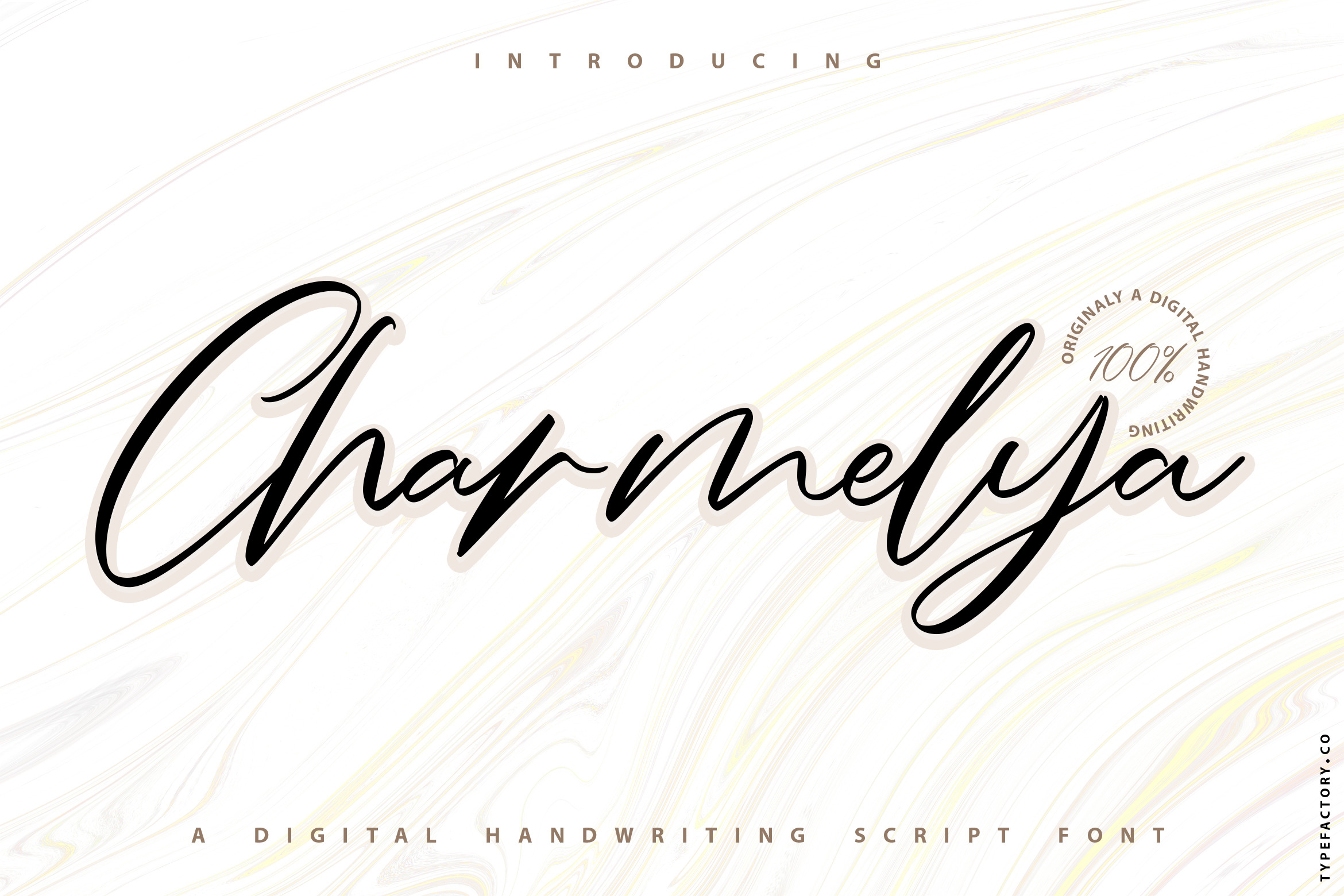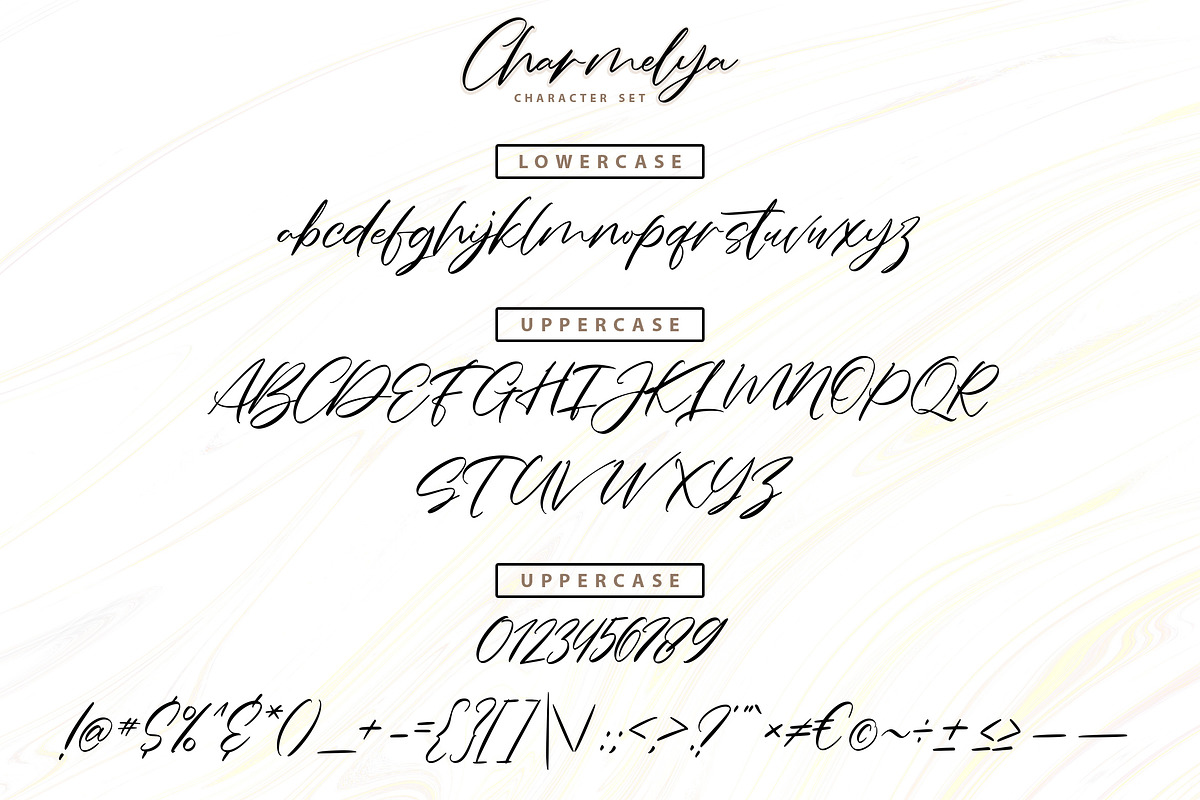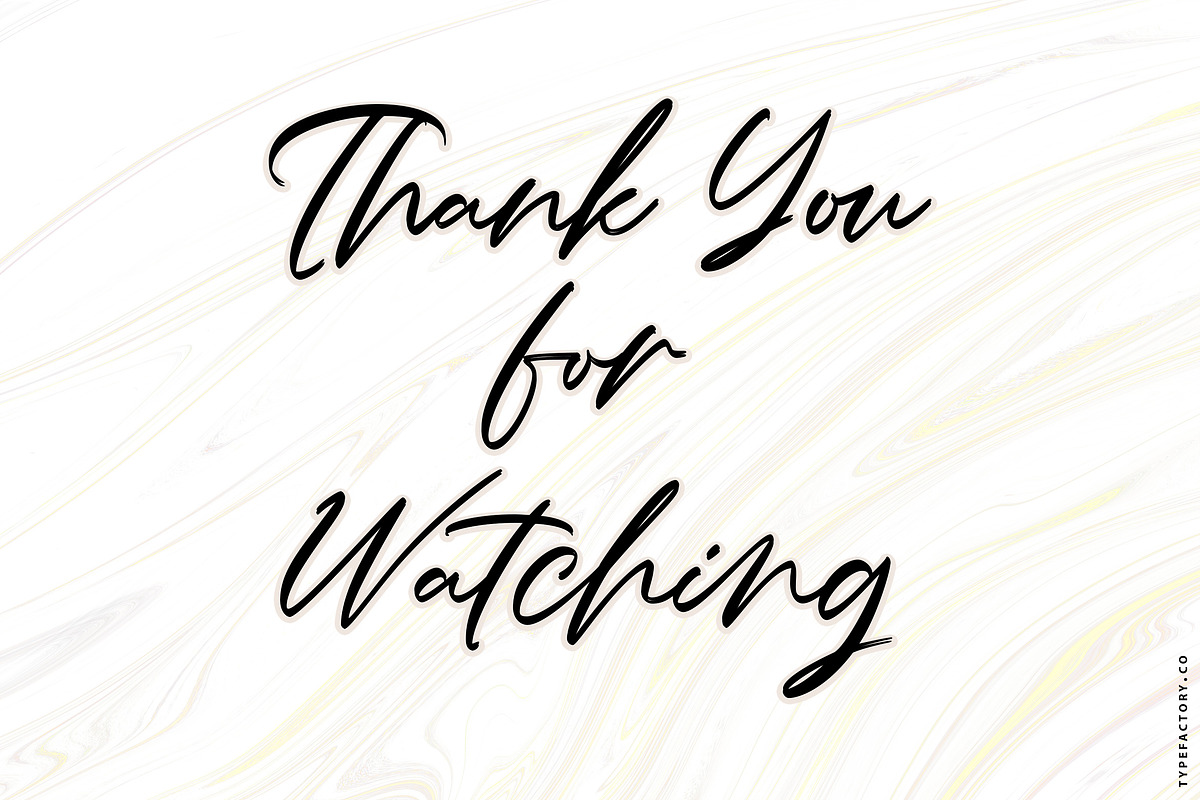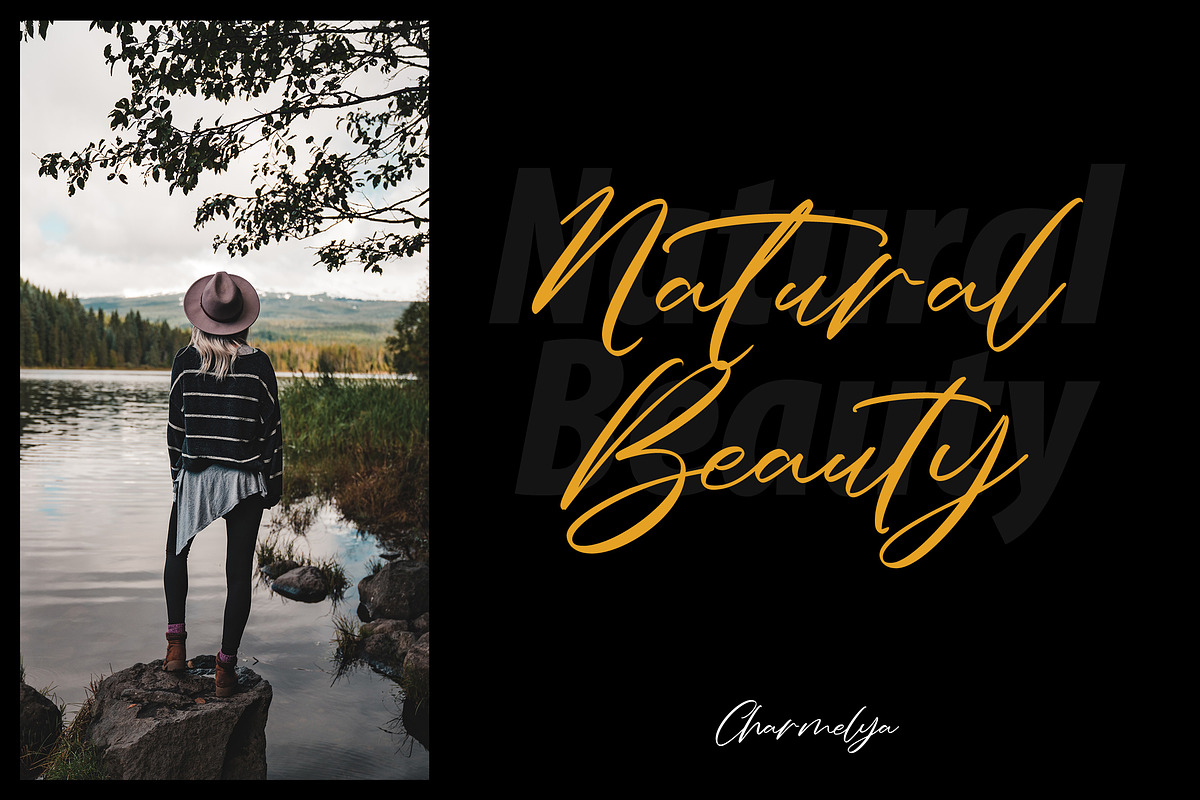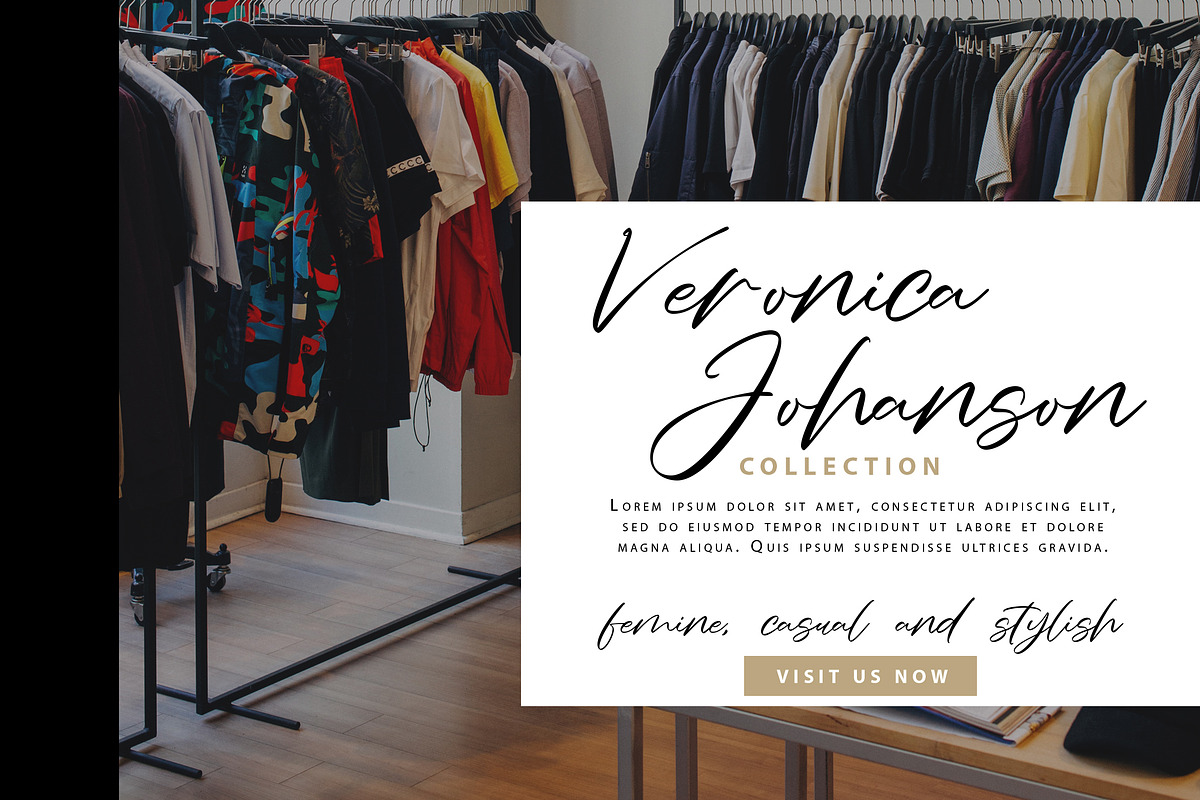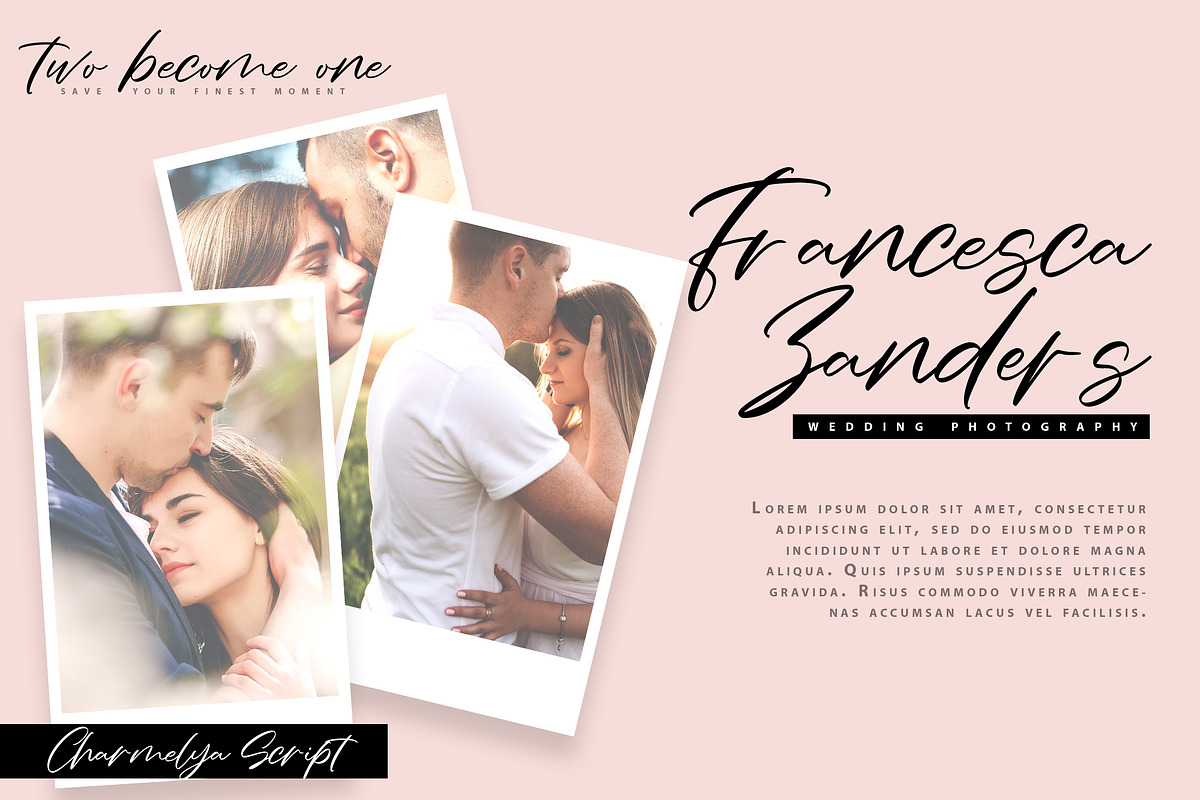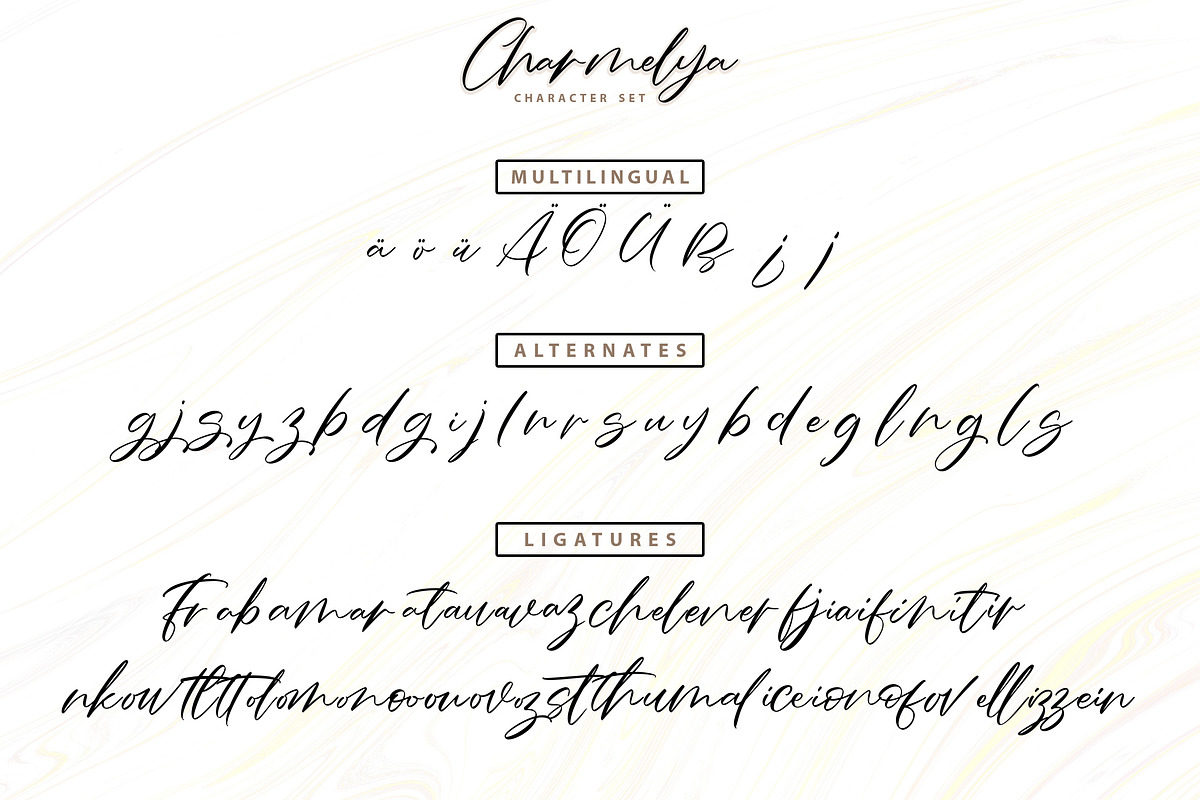
Charmelya – Handwriting script font
Charmelya is a Lovely Handwriting typeface, perfectly suitable for creating quotes, wedding invitations, lifestyle designs such as logos, titles, magazines, and more.